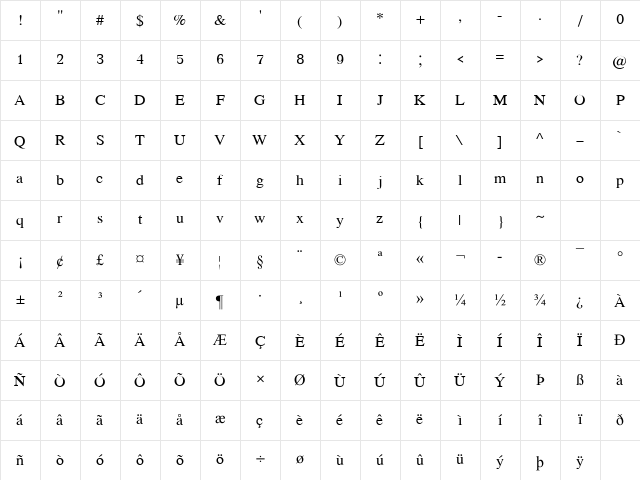
KodchiangUPC Regular
KodchiangUPC Family
KodchiangUPC Regular
Complete KodchiangUPC Regular glyph index. Displaying only characters natively supported by KodchiangUPC Regular font.
Design Context for KodchiangUPC
KodchiangUPC is a composed and adaptable typeface that performs quietly and consistently across a wide range of design contexts.